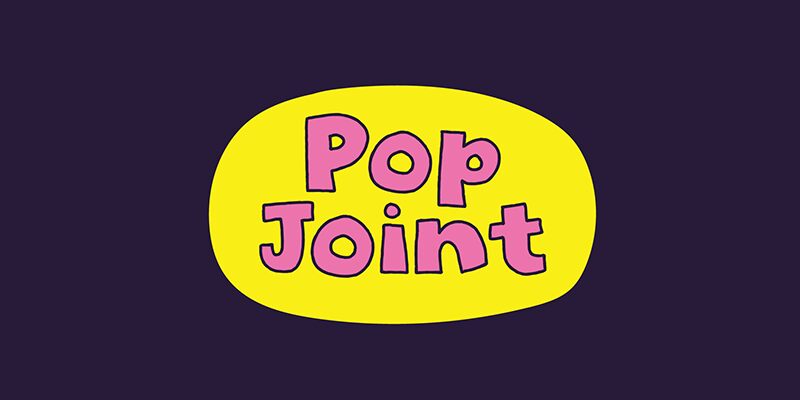
Pop Joint font by Pizzadude is a cartoon display typeface with bold letters. The unusual and wacky letterforms make this an informal font that gives off a light friendly vibe. The type style can be described as expressive because of its odd character shapes and sporadic thickening of strokes.
Pop Joint font is perfectly suitable for children’s book covers, logos, t-shirts, packaging designs, illustrated posters, blogs, gaming websites or apps, craft projects and greeting cards. Your imagination has no limits as you can freely use this incredible nostalgic looking typeface in numerous personal and business projects.